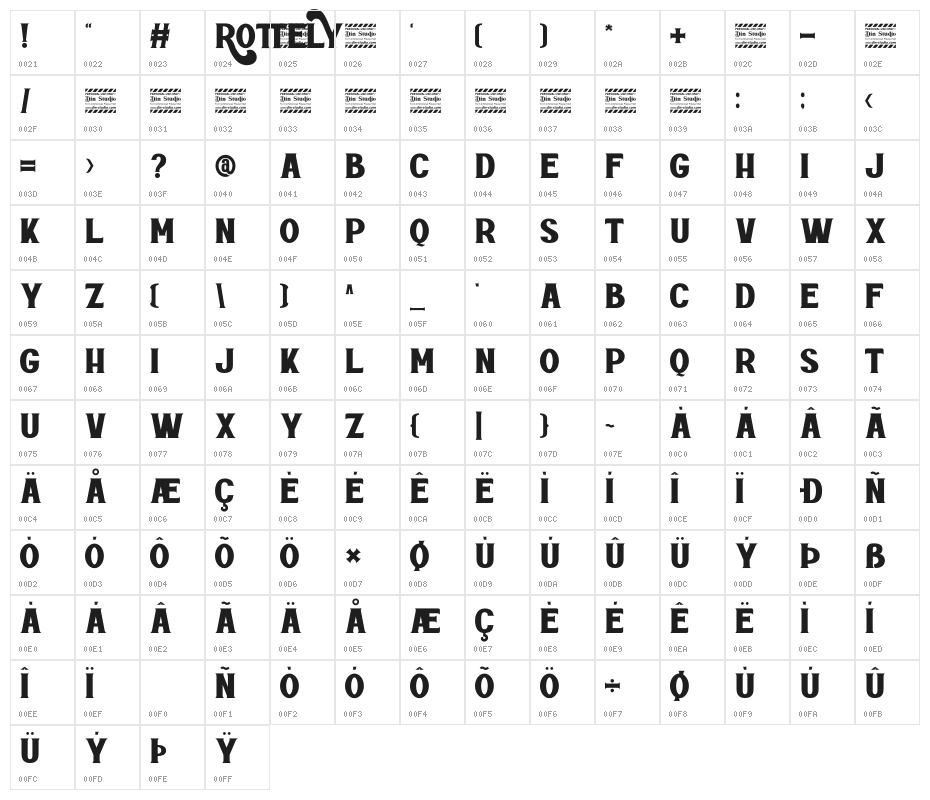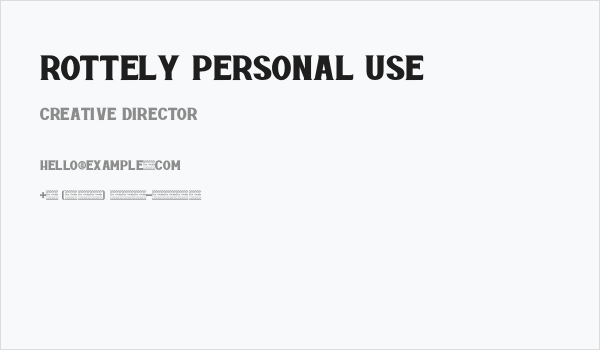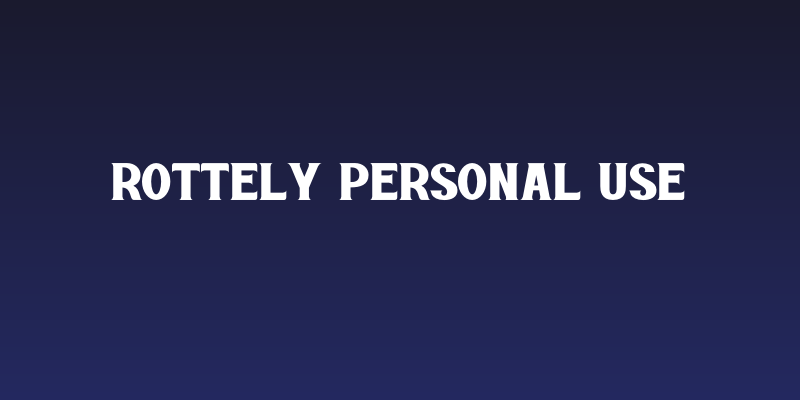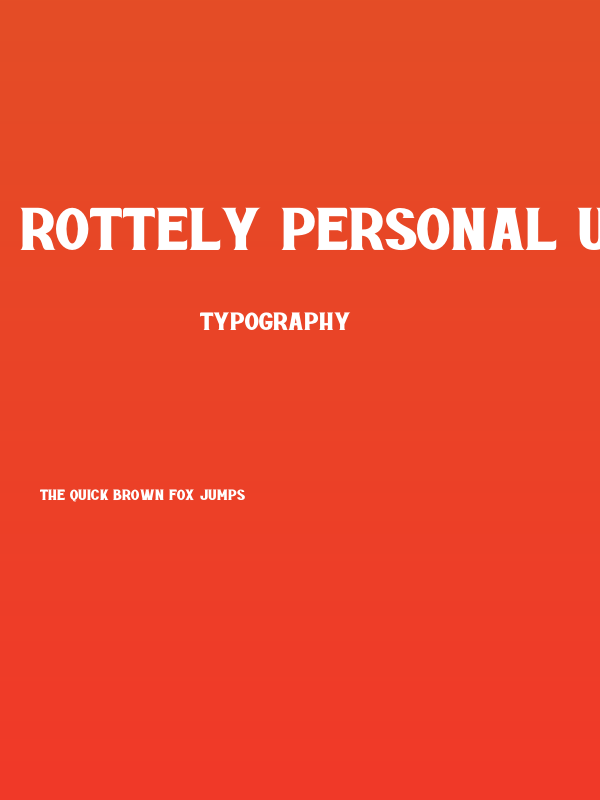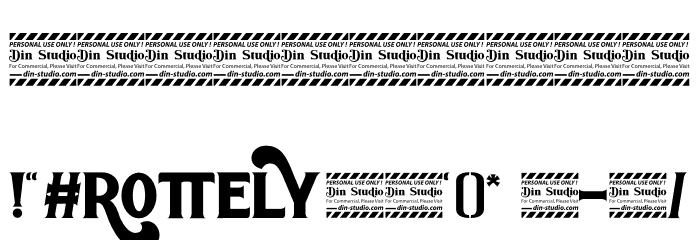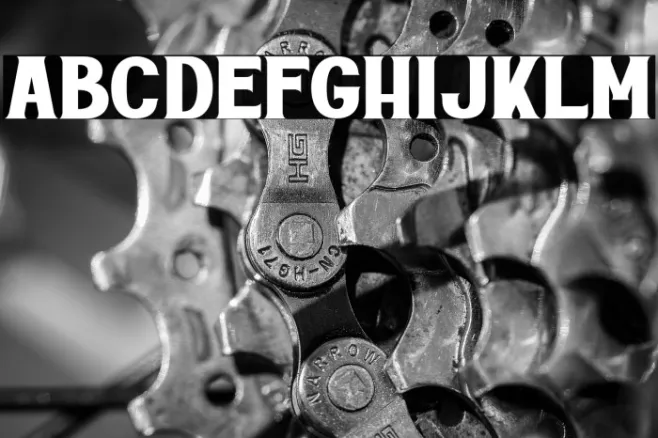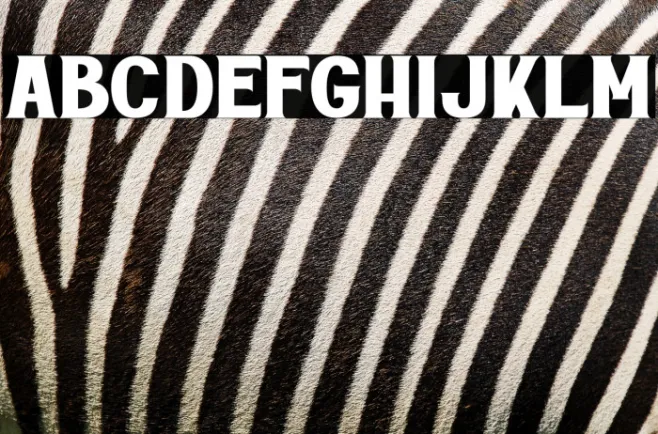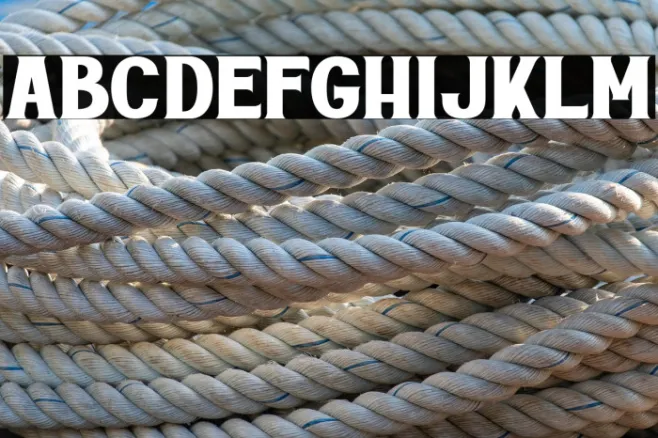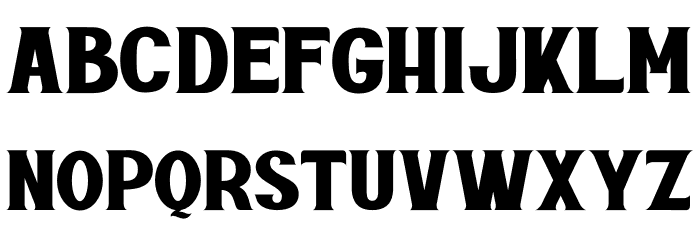
Rottely Personal Use Font
Rottely Personal Use Description
This font features bold, thick strokes with a strong presence, making it ideal for impactful designs. The uppercase letters are characterized by their solid, block-like appearance, while the lowercase letters maintain a consistent weight, providing a cohesive look. The numerals and special characters are designed to match the boldness of the alphabet, ensuring uniformity across all text. The font's style is reminiscent of vintage poster typography, with a modern twist that makes it suitable for contemporary use. Its distinct and assertive design is perfect for grabbing attention.